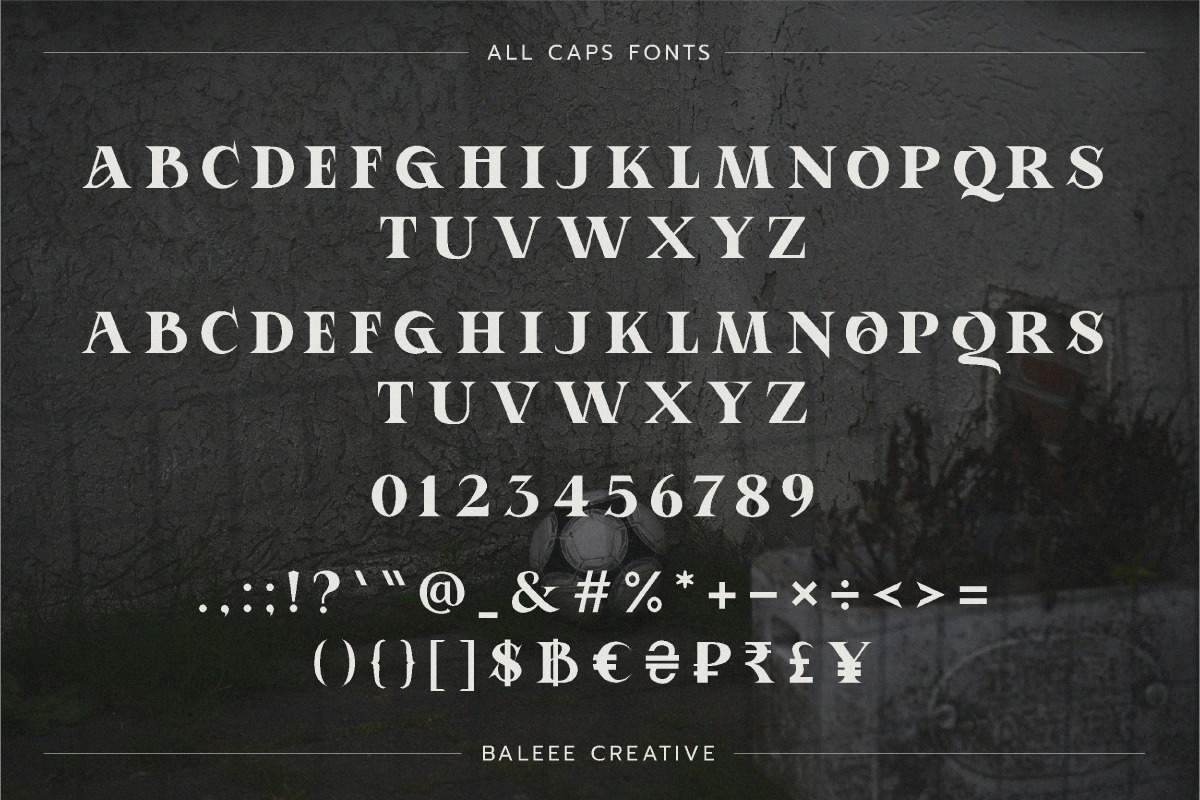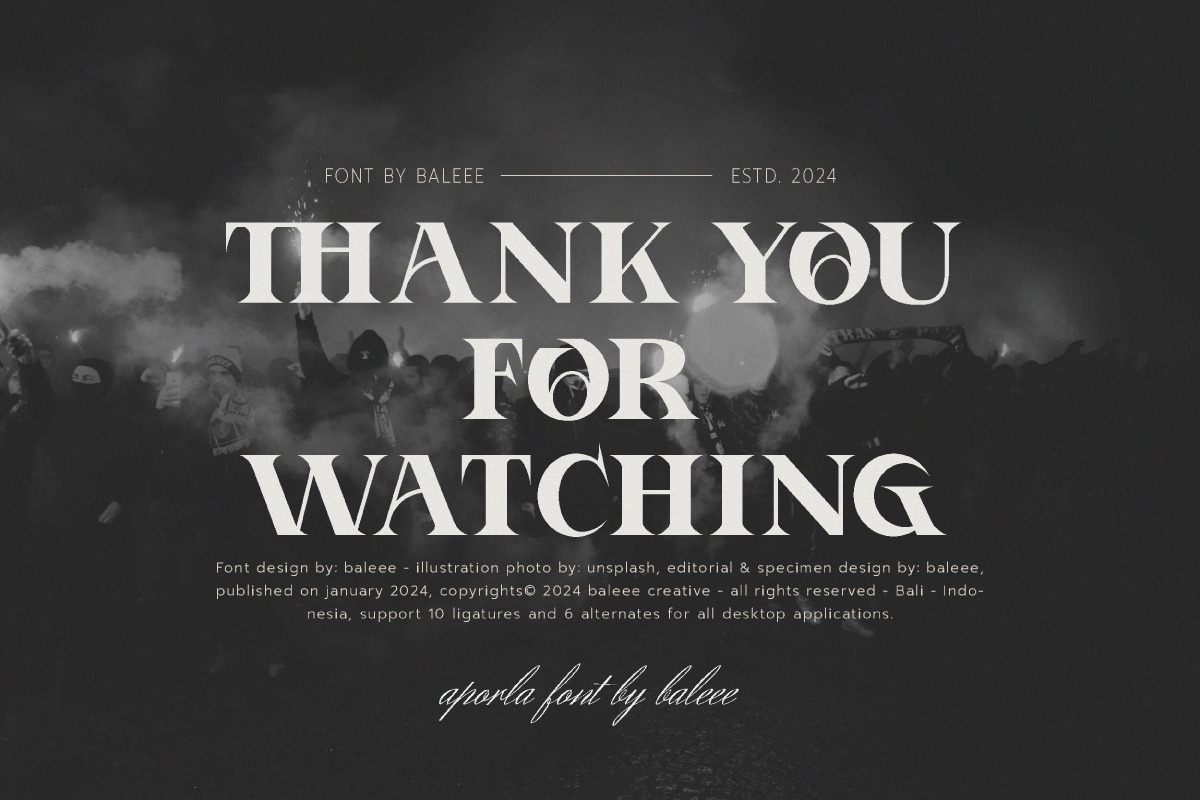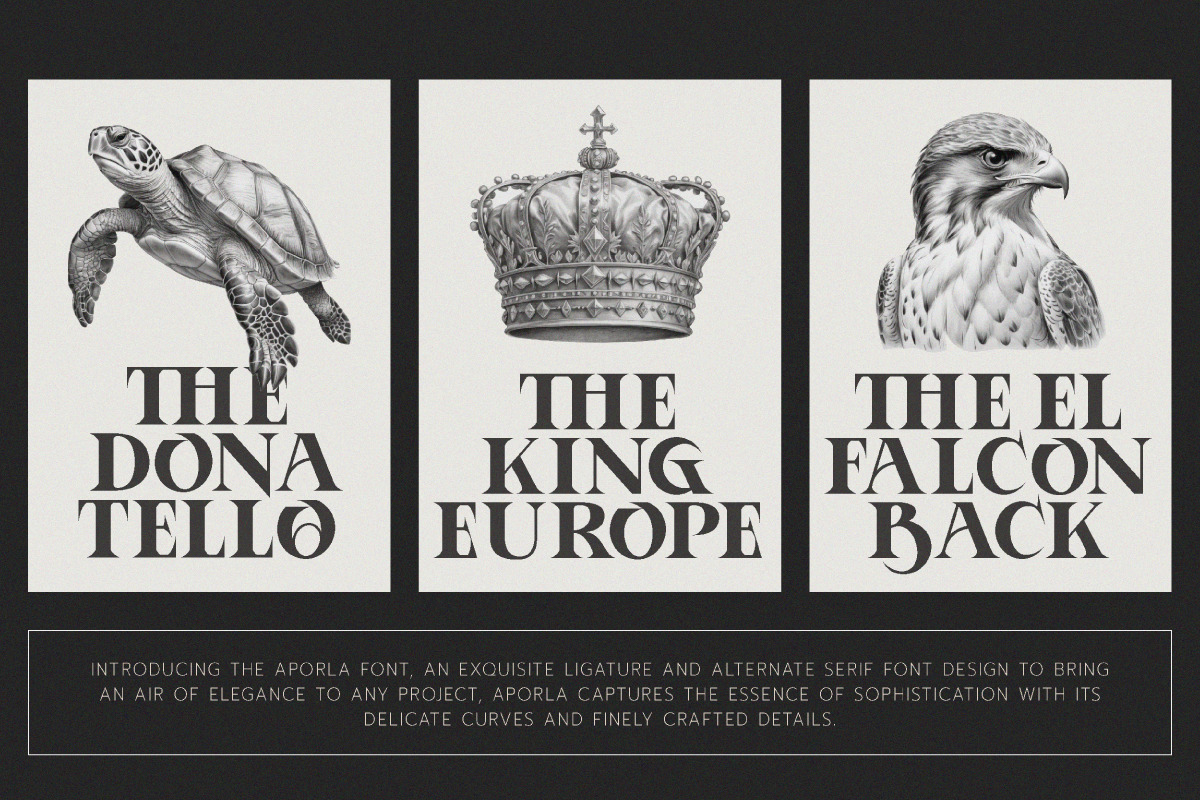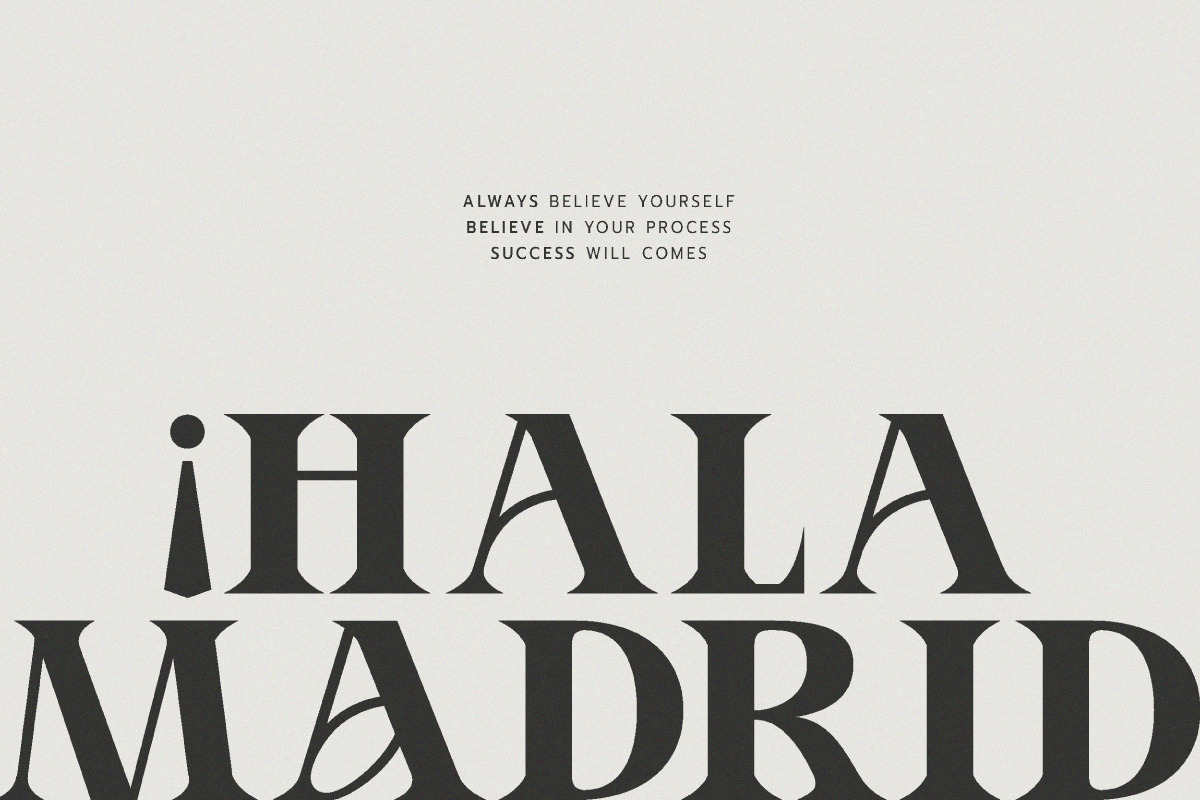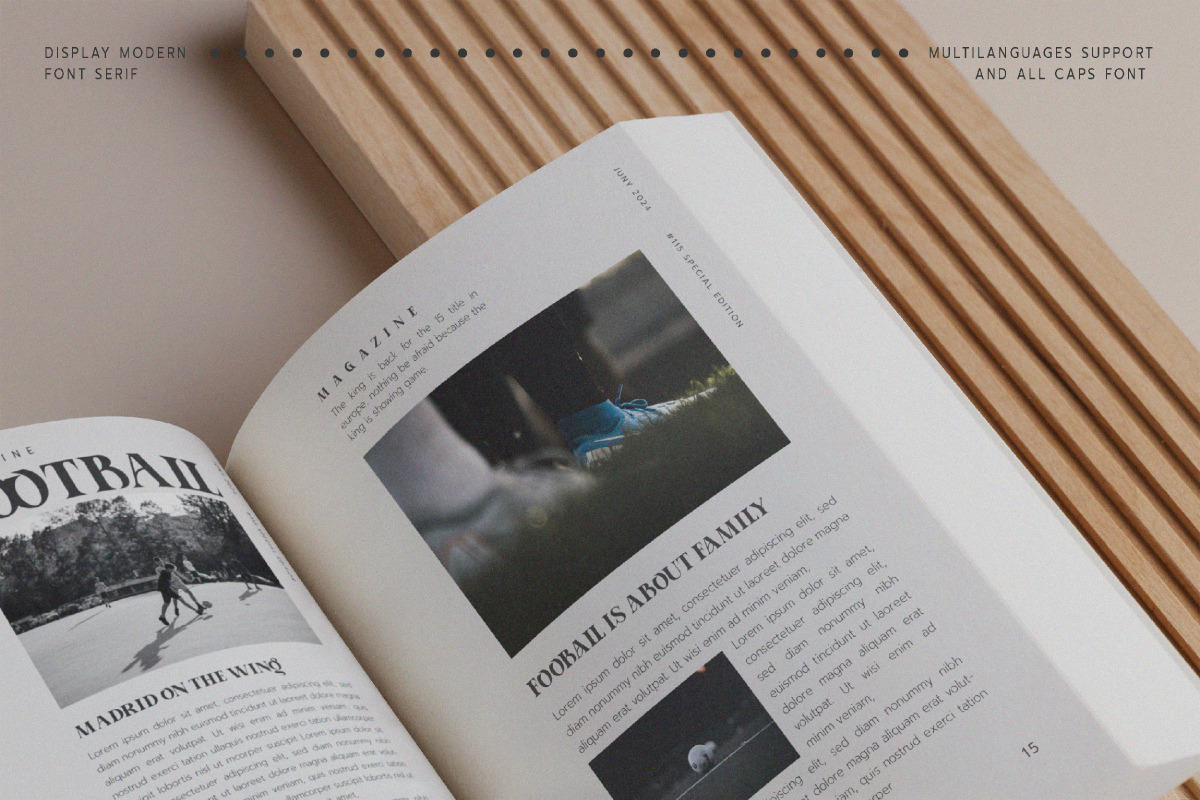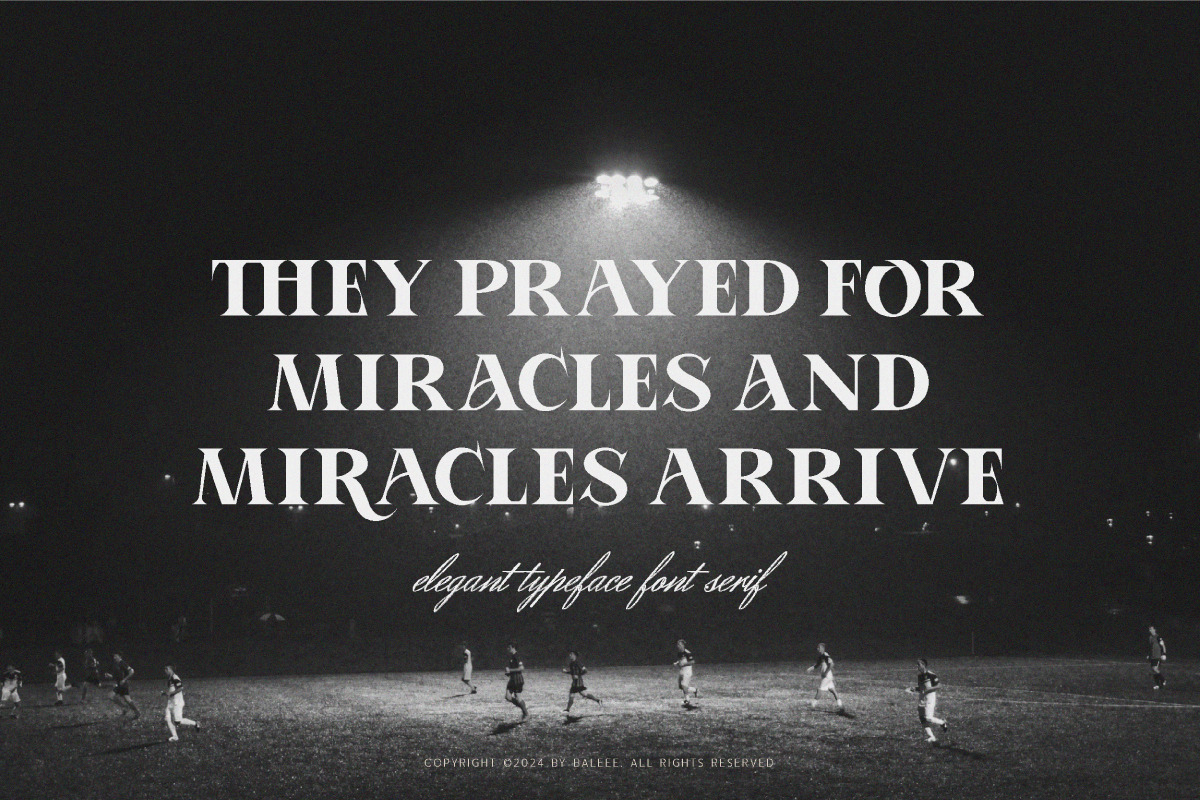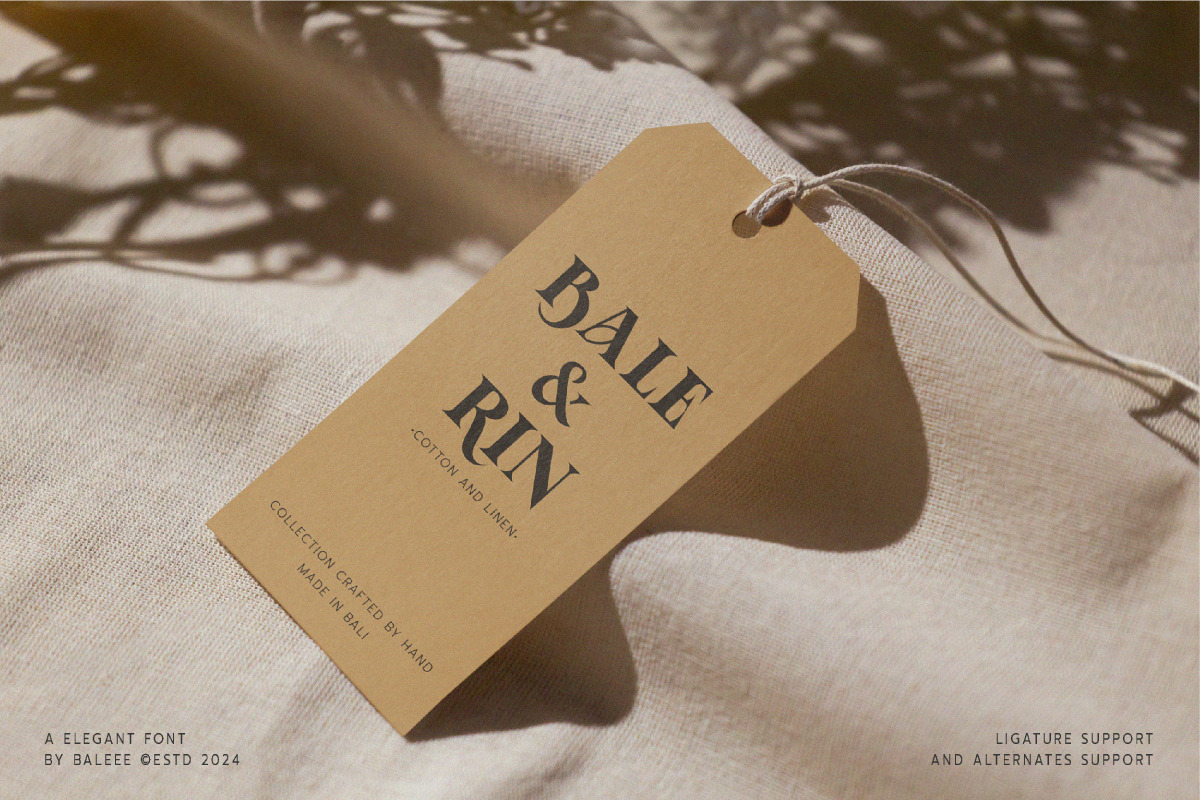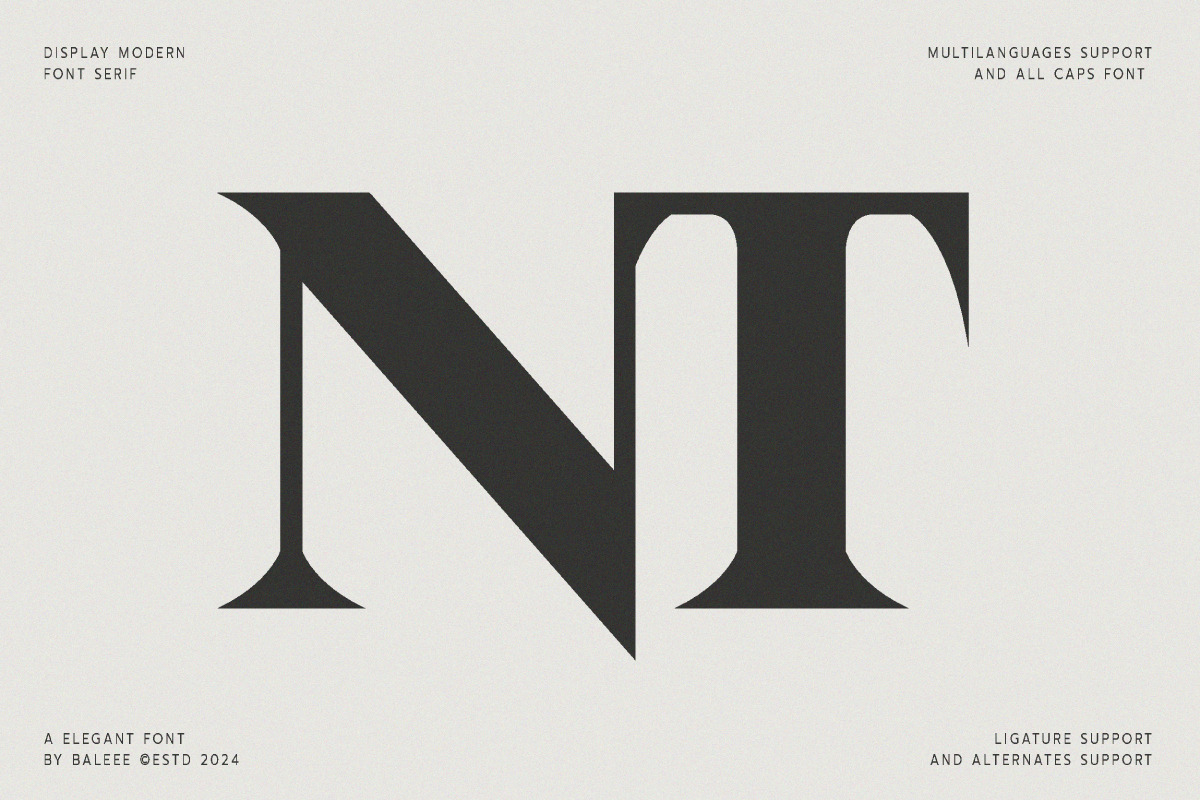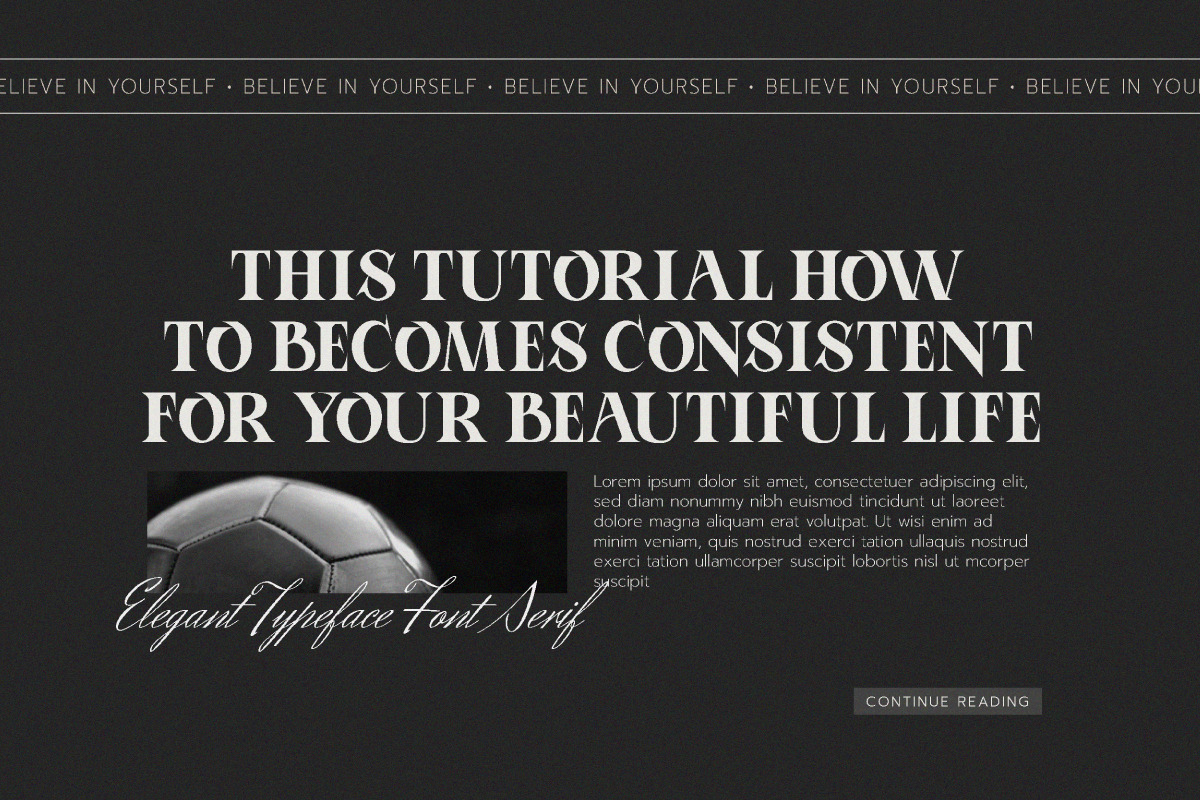
Aporla - Elegant Slab Serif
Introducing Aporla - Elegant Slab Serif Font
An elegant slab serif font with a modern feel. Equipped with alternates and ligatures to play around with! This font has a soft and unique look to the edges of the letters. That’s how this font was created to give it an elegant and authentic look!
Aporla Font is perfect for: Jersey, logos, branding, wedding invitations, digital template, business cards, greeting cards, posters, magazines, social media, planner prints and websites.